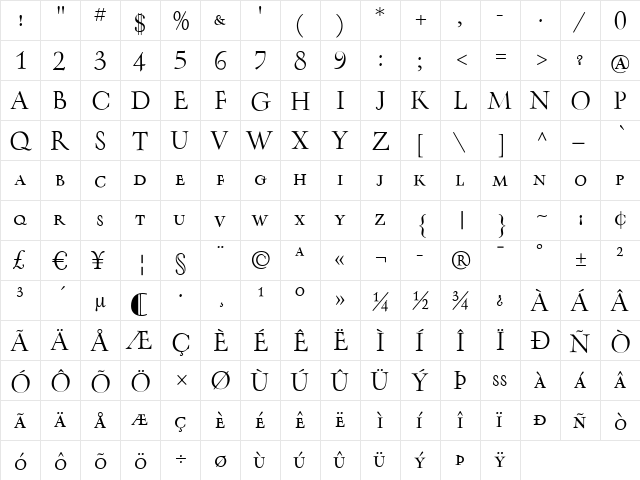
Oneleigh Regular
Design Context for Oneleigh Typeface
Oneleigh takes a measured approach to typography — its balanced proportions and neutral character make it a reliable workhorse for both digital and print work.